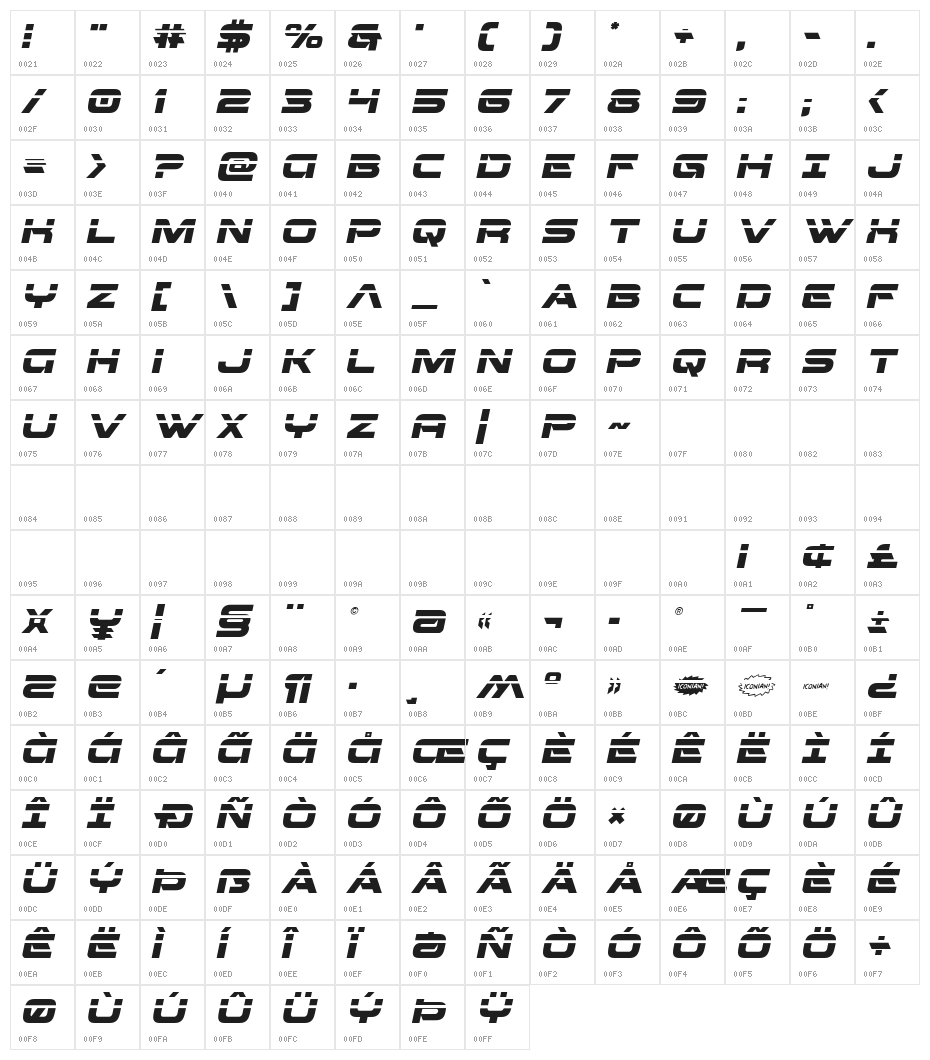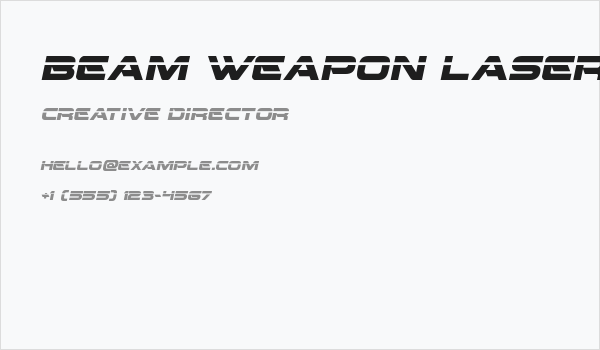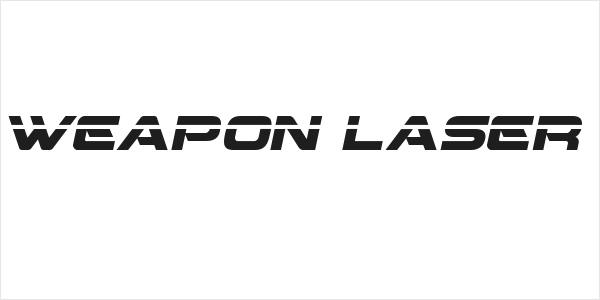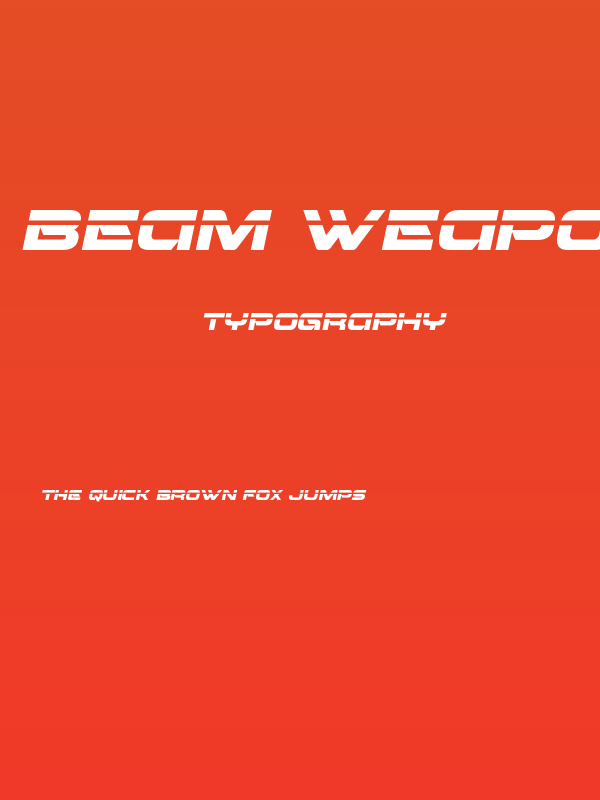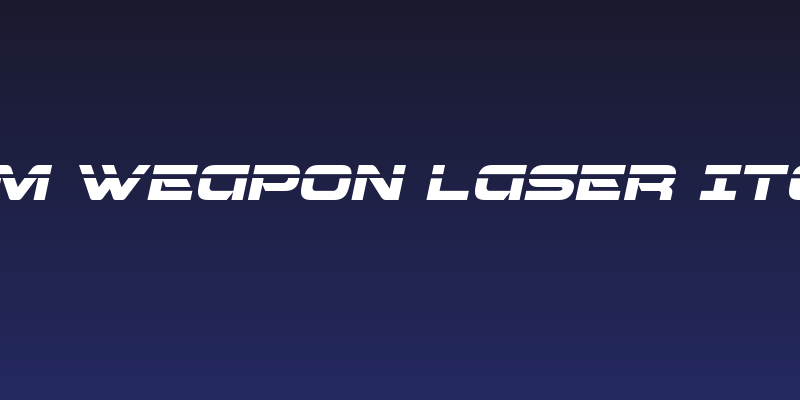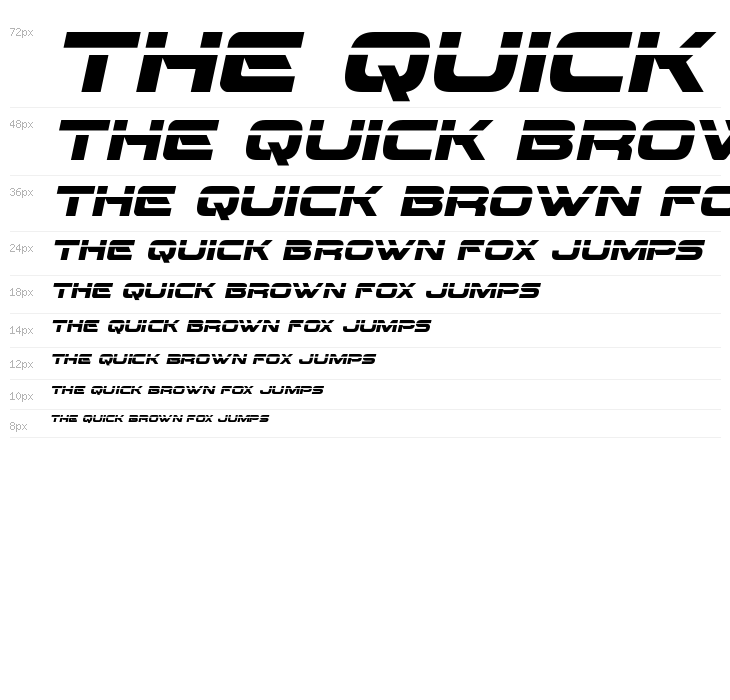
Beam Weapon Laser Italic Font
Beam Weapon Laser Italic Description
This font features a futuristic and dynamic design, characterized by sharp angles and a sleek, italicized form. The letters are bold and convey a sense of speed and modernity, making it ideal for projects that require a cutting-edge aesthetic. The uppercase and lowercase letters maintain a consistent style, with the uppercase being slightly more pronounced. The numbers and special characters are designed to match the overall theme, ensuring a cohesive look across all text elements.
| Proposed Projects | Ideal for sci-fi themed projects, technology branding, video game titles, and futuristic posters. |